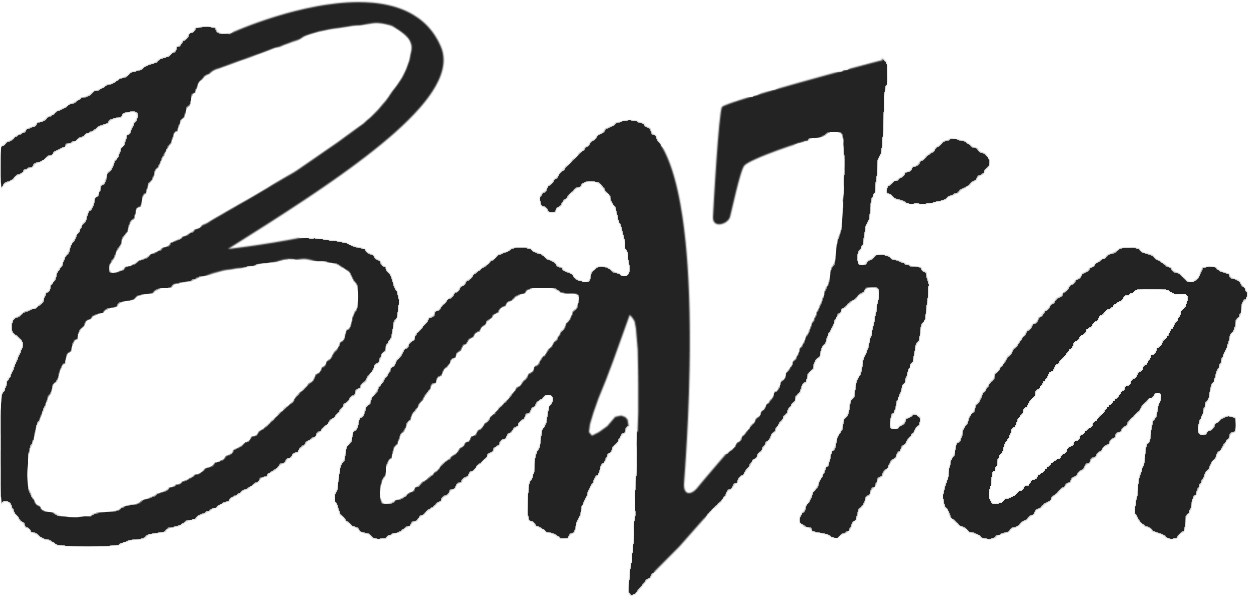
Pristina Regular is the closest I could find but the 'v" doesn’t match.
It’s Pristina. The v has been manually altered.
Thanks! The other characters were a match but you’re right - the “v” is custom.
One last thought, do you think the “v” is from another typeface?
You’re right. It looks like l.c. v from Vivaldi:
I got another variation. This one has a capital “B”. It’s not from Pristine or Vivaldi. The character got a little chopped on the bottom left. Do you know what was used for the B on this?